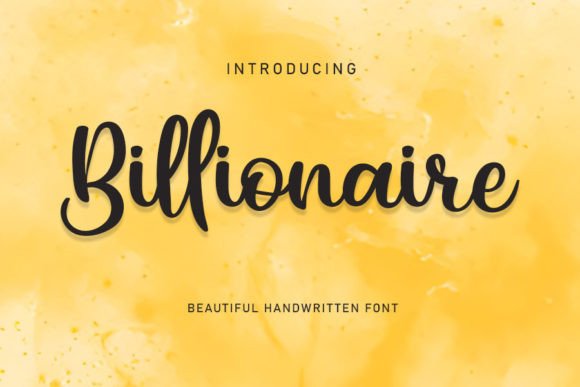
The Billionaire Font: Elevate Your Designs with Elegance and Sophistication
I’ll never forget the moment I stumbled upon the perfect font for a client’s luxury branding project. It was like a breath of fresh air – the design instantly transformed, exuding elegance and sophistication. That font was Billionaire, an incredibly unique handwritten font that has since become a staple in my design toolkit. In this article, I’ll share my experience with Billionaire, its features, and how to make the most of it in your designs.
As a designer, I’m always on the lookout for fonts that can bring my creative ideas to life. Billionaire has been a game-changer in this regard. Here’s what I love about it:
• ✨ Unique and elegant handwritten style that’s perfect for luxury branding, invitations, and creative projects
• 💫 Highly versatile and adaptable to various design contexts
• 🎨 Beautifully crafted to add a touch of sophistication to any design
While Billionaire is an exceptional font, there are a few quirks to consider:
• 🤔 Some users may find the font a bit challenging to read in smaller sizes or at certain resolutions
• ⚠️ Limited availability of language support, which may be a concern for designers working with non-English text
The Story Behind Billionaire: A Designer Inspiration
The story behind Billionaire’s creation is one of passion and dedication. According to its designer, Billionaire was crafted with the goal of creating a unique and elegant handwritten font that would inspire creativity and sophistication. With its beautiful swashes and glyphs, it’s clear that Billionaire was designed to bring a touch of luxury to any design.
Q: What is Billionaire font? A: Billionaire is a unique handwritten font designed for creative projects and luxury branding.
In conclusion, Billionaire is an exceptional font that can elevate your designs to new heights. With its elegant handwritten style, beautiful swashes, and versatility, it’s a great addition to any design toolkit. Whether you’re a designer, crafter, or creative hobbyist, Billionaire is definitely worth exploring.